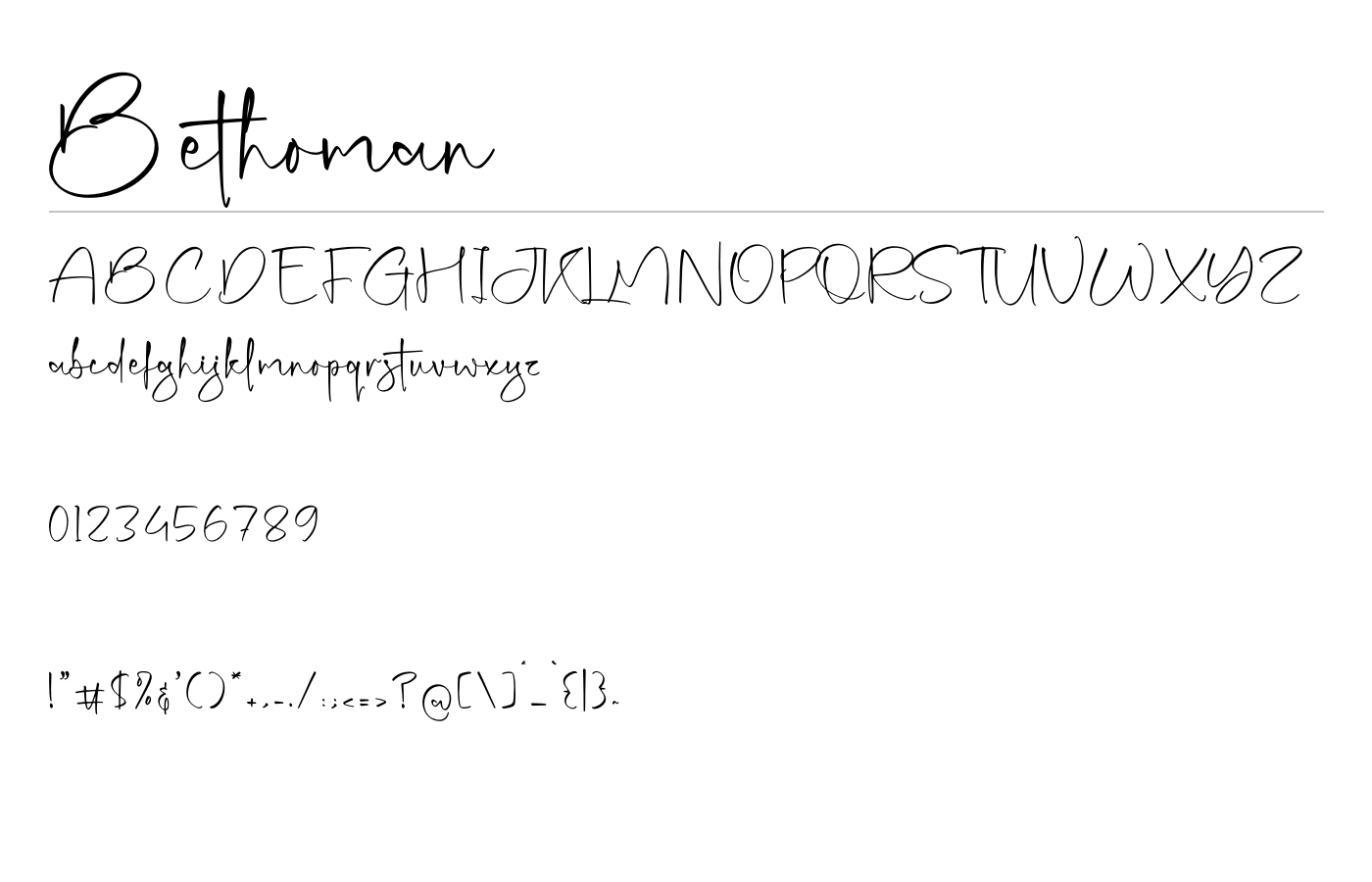
Bethoman is a delicate, handwritten script font with a light weight and elegant, flowing strokes that create a personal, casual yet refined feel. Its tall, slender letterforms with playful curves and unique letter connections make it perfect for feminine branding, invitations, and creative projects where a touch of sophistication and charm is desired. This font works well in headlines, logos, and any design seeking a friendly, handcrafted look with a modern twist.
Bethoman Font
About Bethoman Font